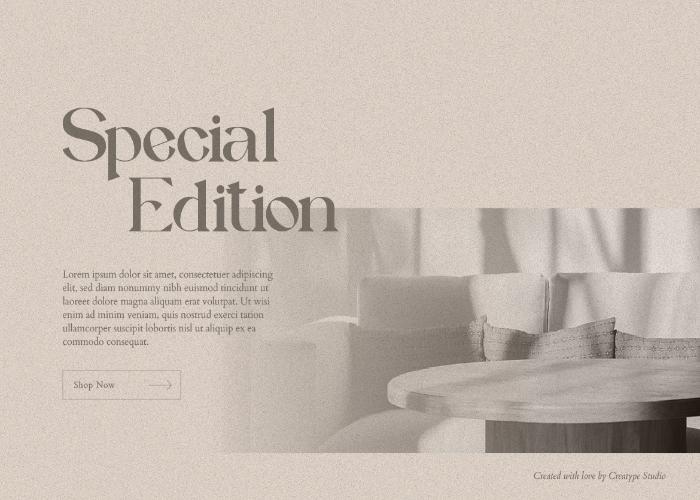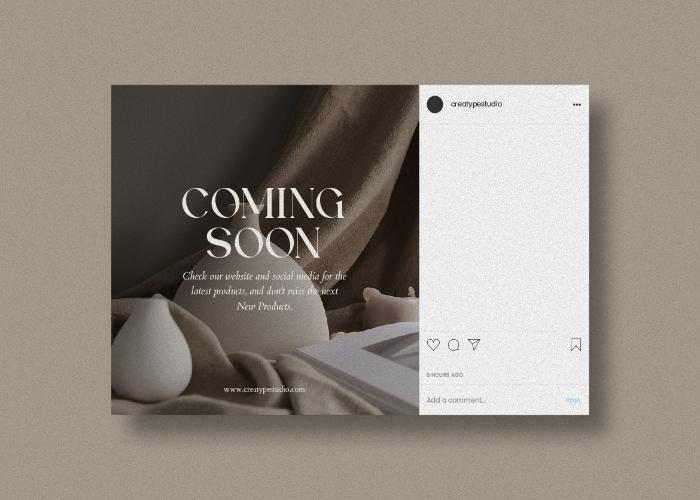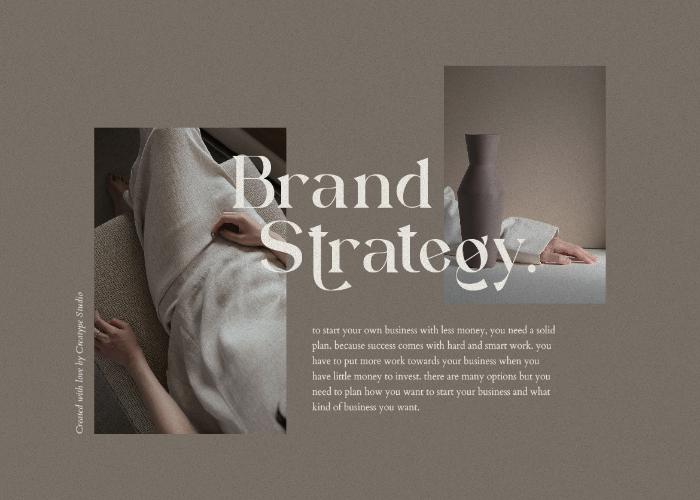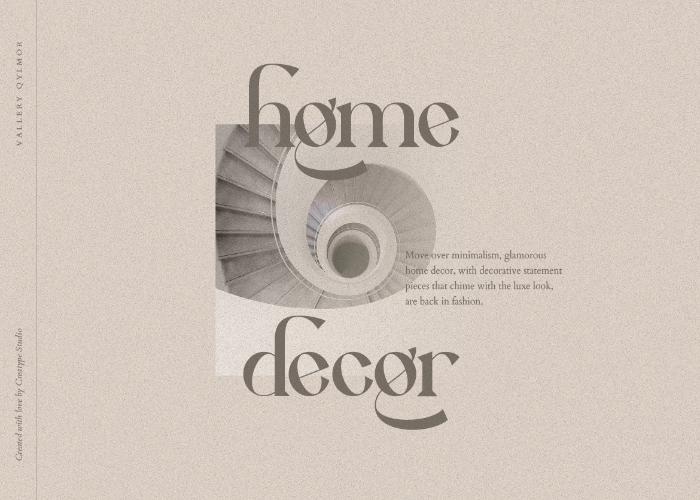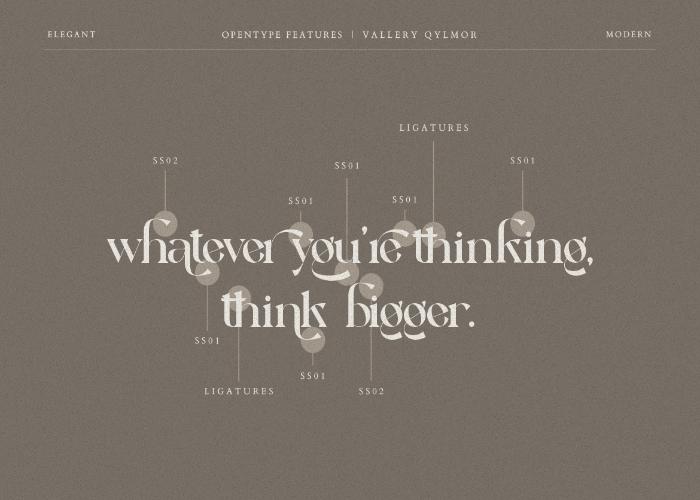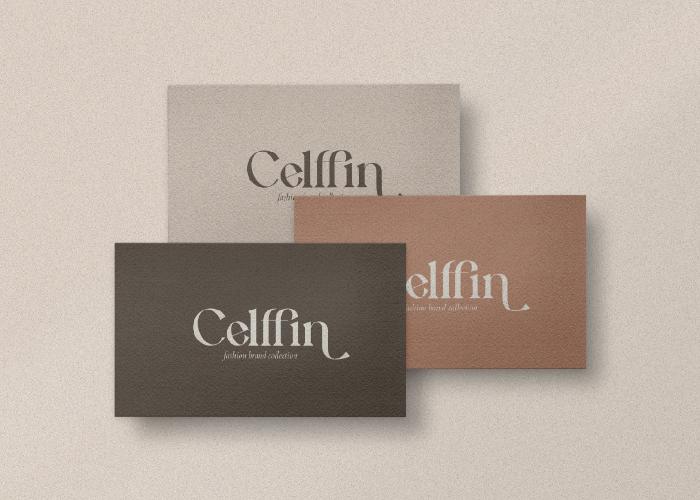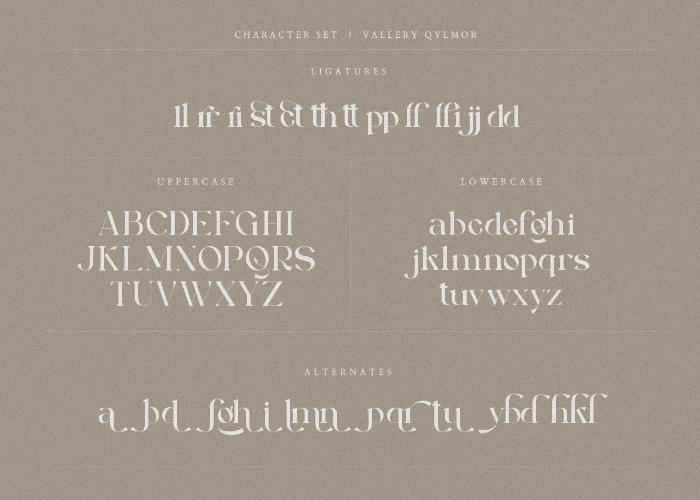
Vallery Qylmor Serif Font
Vallery Qylmor Thick Sans Serif Font
Add a classy & formal feel to your designs! Presenting to you “Vallery Qylmor Thick Sans Serif Font.”
This freebie consists of a thick sans serif typeface. It looks very simple & clean. This font is perfect for branding projects, logo design, clothing branding, product packaging, magazine headers, or simply as a stylish text overlay to any background image.
Vallery Qylmor Thick Sans Serif Font Preview Images
Vallery Qylmor Font Second Poster Preview
Vallery Qylmor Serif Font Coming Soon Card Preview Image
Vallery Qylmor Thick Sans Serif Font Product Text Preview Page
Vallery Qylmor Serif Font Product Card Preview Image
Vallery Qylmor Font Opentype Features Preview Image
Vallery Qylmor Serif Serif Font Business Card Preview Image
Vallery Qylmor Serif Font Character Set 1 Preview Image
Vallery Qylmor Thick Sans Serif Font Character Set 2 Preview Image